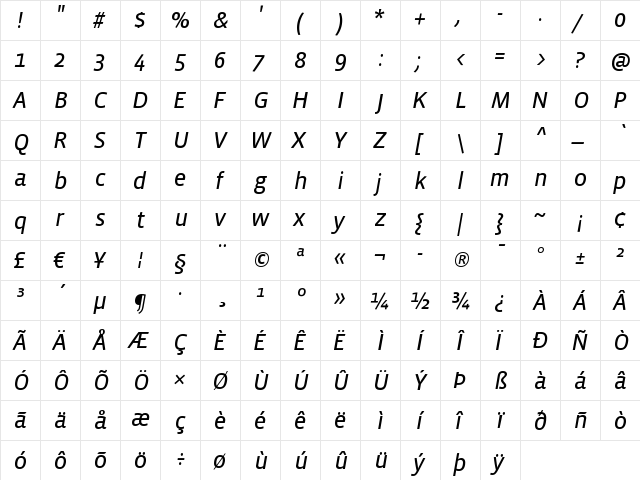
VistaSansRegItalic Regular
Design Context for VistaSansRegItalic Typeface
VistaSansRegItalic offers clean, dependable letterforms without strong stylistic allegiance, making it a practical choice for designers who need flexibility. The slanted form adds forward momentum and visual energy.